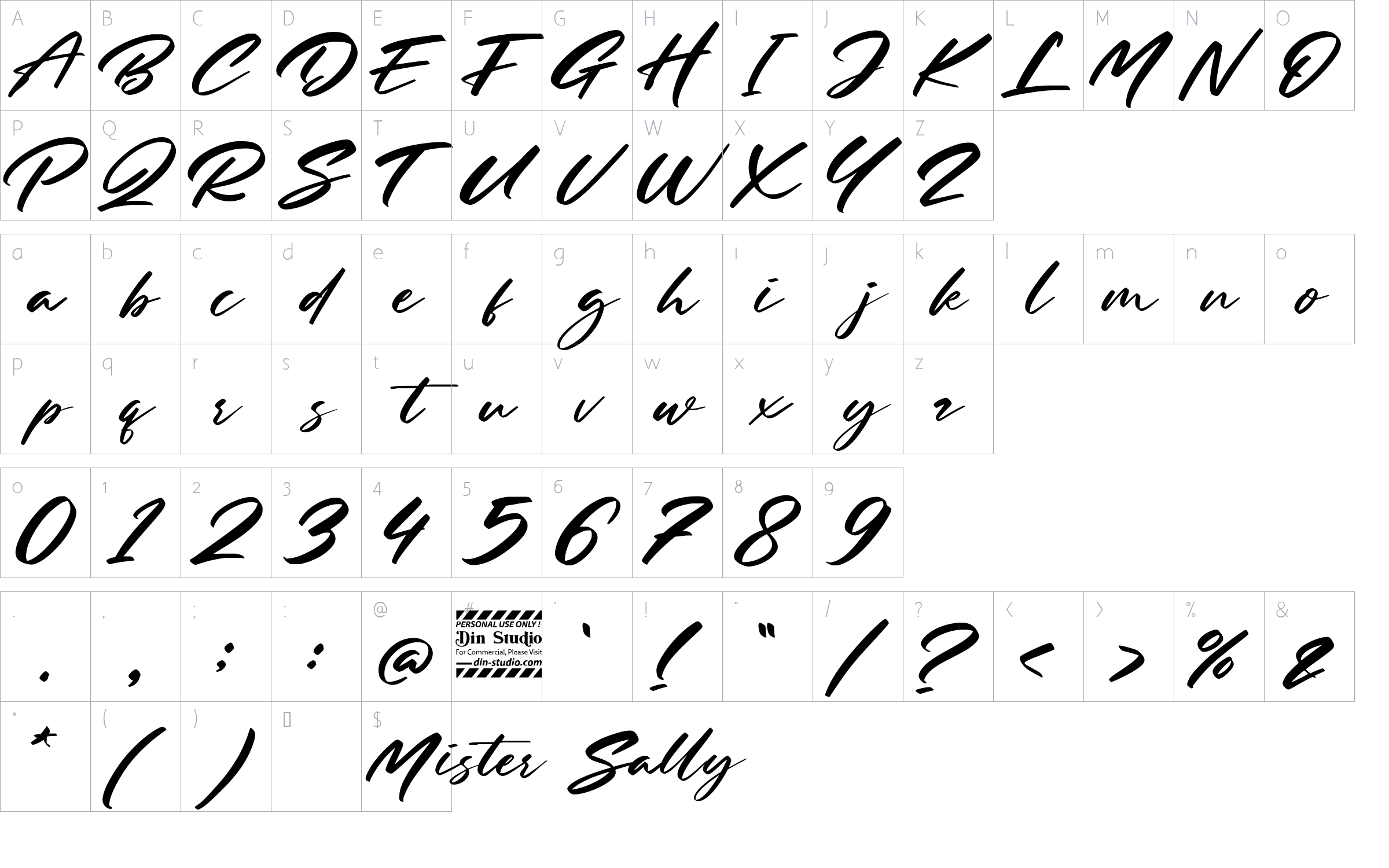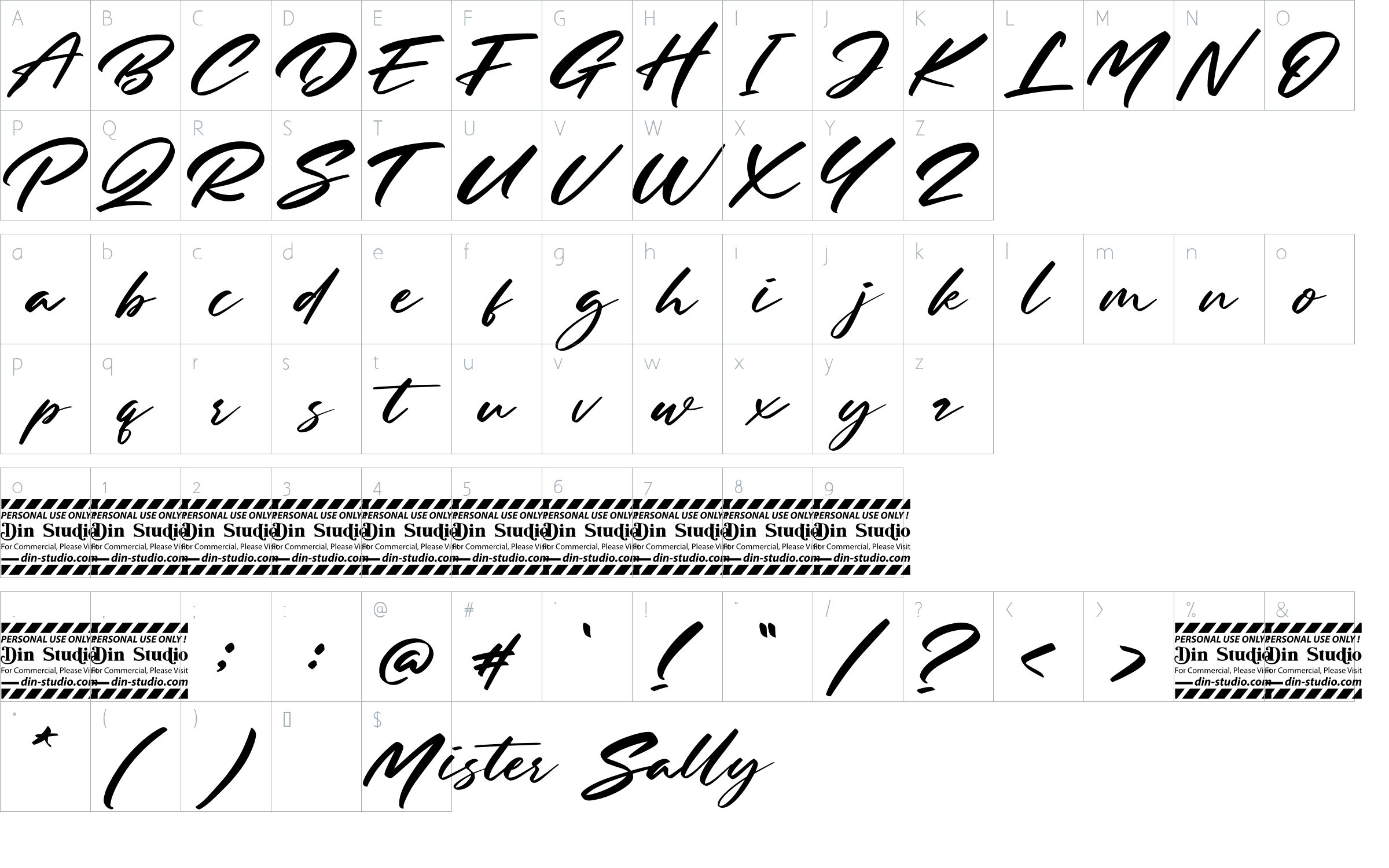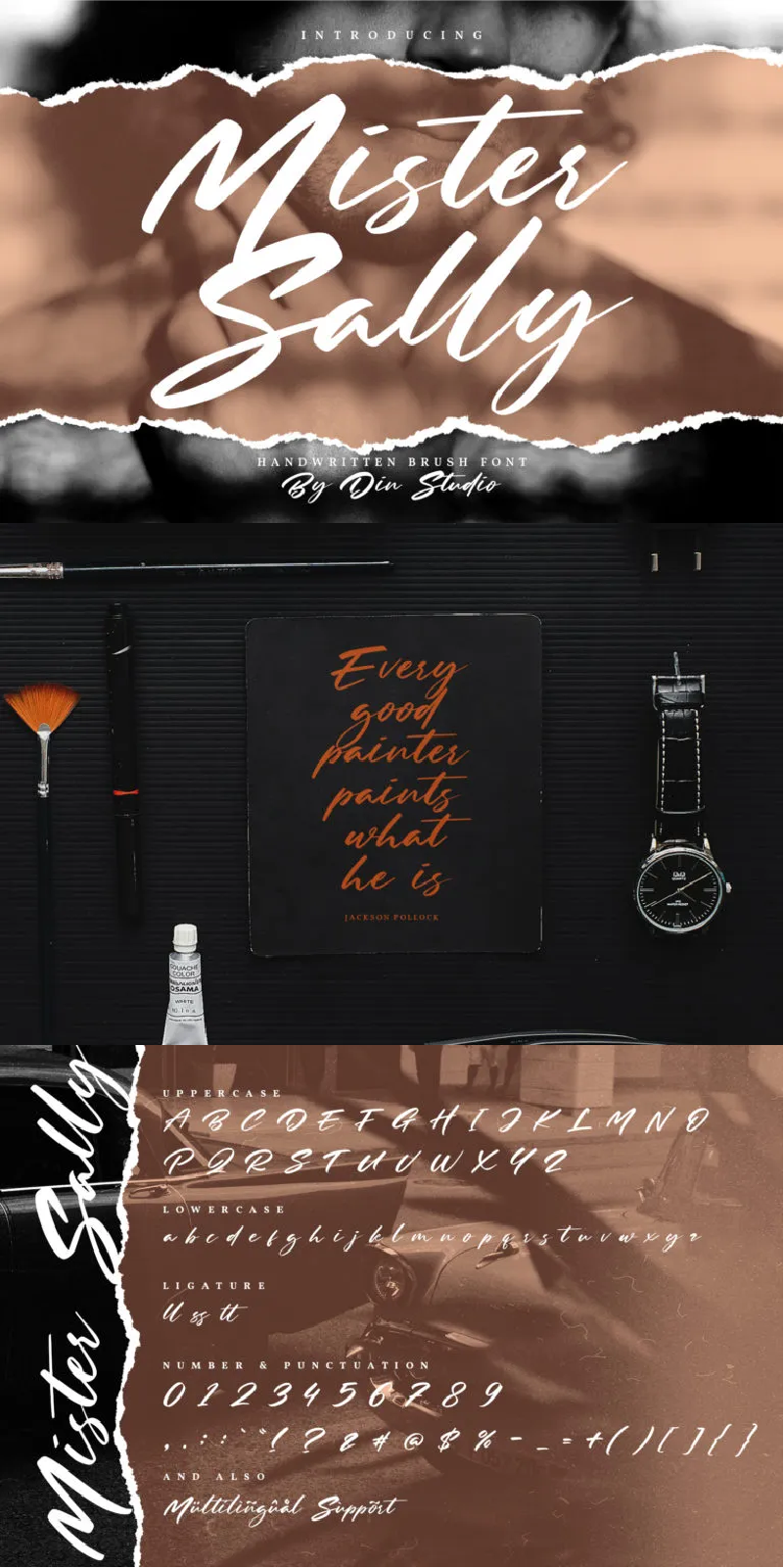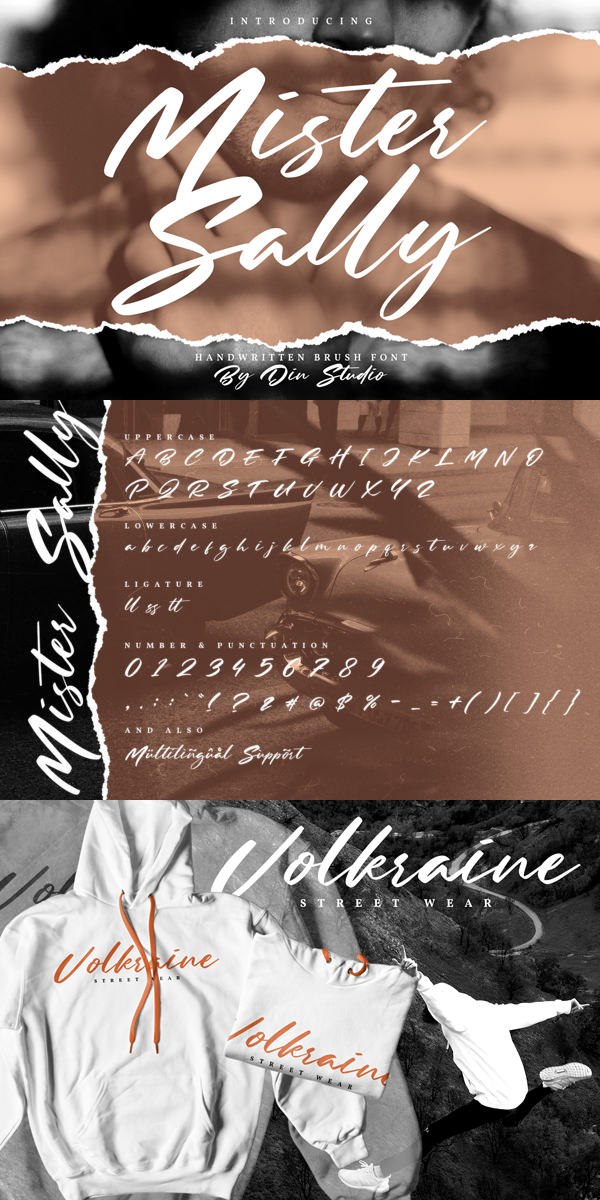
Mister Sally Font
About Mister Sally
Mister Sally, a handwritten brush font with a classy and beautiful handwritten style that brings a classy and chic typeface. It is made for any professional projects which is best used for weddings, brandings, logotypes, and quotes. See the previews above to get some inspiration on how you can use them. Happy designing!